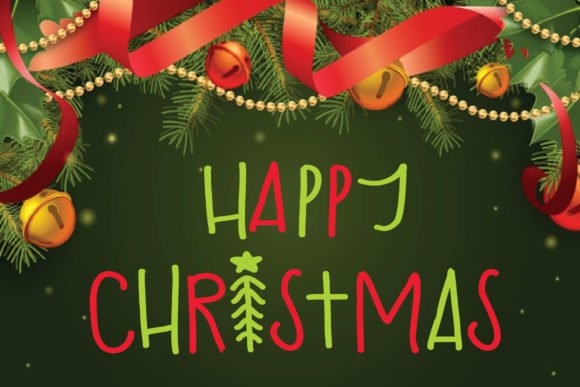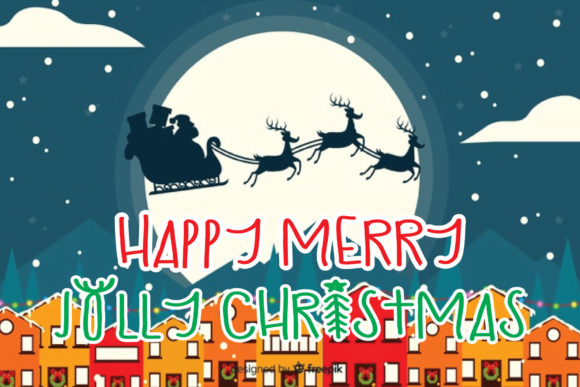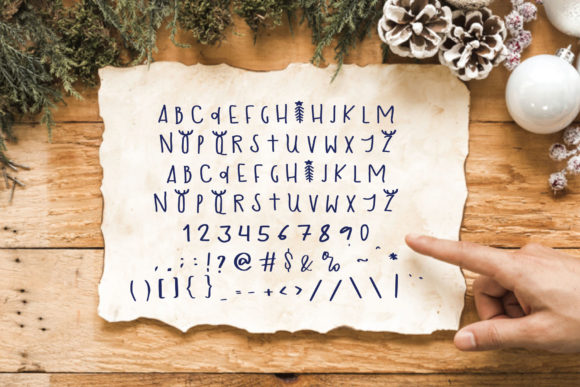
Deck the Halls with Joy: Introducing Happy Christmas Font
As the snowflakes start to fall and the holiday lights twinkle to life, many of us can’t help but feel a surge of creative energy. The festive season is the perfect time to get crafty and show our loved ones how much we care. Whether it’s designing greeting cards, creating handmade decorations, or crafting personalized gifts, there’s something special about putting our own personal touch on the holidays.
That’s where the Happy Christmas Font comes in – a sweet and festive handwritten font that’s sure to add a touch of magic to your holiday projects. Perfect for creating merry and bright greeting cards, this font is a must-have for any designer looking to spread some holiday cheer. With its charming, handwritten style, the Happy Christmas Font is the perfect way to add a personal touch to your holiday crafts.
Key Features of Happy Christmas Font
- Unique Characteristics: The font features a playful, handwritten style with intricate details and ornaments, making it perfect for holiday-themed designs, cards, and invitations.
- Character Set: The font includes a comprehensive set of characters, including uppercase and lowercase letters, numbers, punctuation marks, and special characters.
- Font Style: The Happy Christmas Font is a script font, offering a unique, handwritten feel that adds a personal touch to designs.
Designer Review: Happy Christmas Font
First impressions are everything, and Happy Christmas Font certainly doesn’t disappoint. ✨ The moment I opened the file, I was greeted with a cheerful and vibrant display of festive characters. The font’s playful nature and whimsical design elements instantly put me in a holiday mood.
One of the standout features of this font is its versatility. ✨ It’s perfect for creating eye-catching headlines, social media graphics, and even crafting custom gift tags. The font’s flexibility in size and color makes it easy to incorporate into various design projects.
- Vibrant and playful design elements
- Perfect for festive and holiday-themed designs
- Highly versatile for various design projects
- Easy to customize with size and color options
- May not be suitable for formal or professional designs
- Some characters may not be compatible with all devices or operating systems
- Limited to holiday-themed designs, may not be useful outside of this context
Overall, Happy Christmas Font is a fun and creative addition to any designer’s toolkit. While it may have some limitations, its unique charm and versatility make it a great choice for festive and holiday-themed designs. If you’re looking to add some holiday cheer to your designs, Happy Christmas Font is definitely worth checking out.
For the best results, use the “Happy Christmas Font” in conjunction with festive colors and graphics.
Experiment with different font sizes and styles to create a visually appealing design.
The “Happy Christmas Font” is ideal for:
Christmas card designs.
Invitations and party flyers.
Seasonal social media posts and advertisements.
Alternatives to Happy Christmas Font for Designers
Christmas Carol Font
Christmas Carol Font is a beautiful, elegant script font that captures the magic of the holiday season. It’s perfect for designers who want to create a sophisticated and vintage look. When to use: Wedding invitations, holiday cards, and other special occasion designs.
Comparison to Happy Christmas Font: While Happy Christmas Font is more playful and casual, Christmas Carol Font is more refined and elegant. If you want to convey a sense of luxury and sophistication, choose Christmas Carol Font.